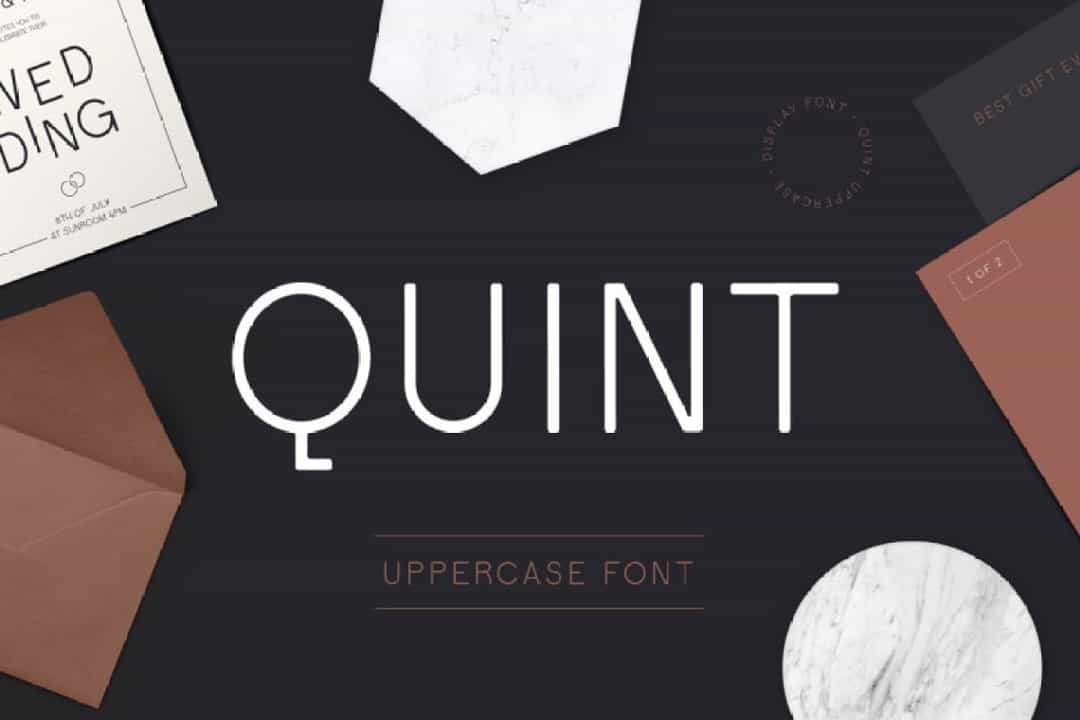
Quint is a purely capitalised sans serif font that was created with the ability to effectively work across multiple projects. Also known for its sharpness, this free display typeface is a sans serif font with geometric construction with rounded corners for the forms of the letters.